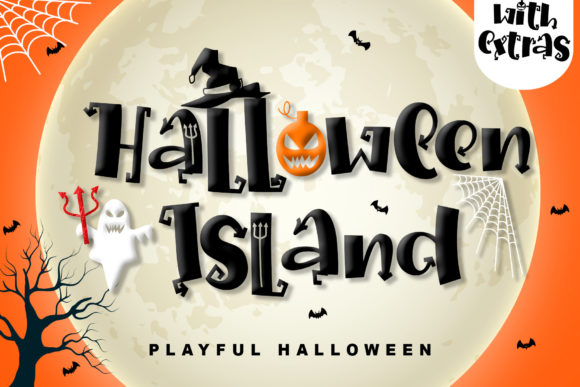
Immerse yourself in the captivating world of Halloween Island, a decorative font that will cast a spell on your designs. With its enchanting fusion of whimsical and sophisticated undertones, this font is the perfect companion for unleashing your creative spirit this October.
Immerse yourself in a world of creativity with Halloween Island, a decorative font that will enchant your designs in an instant. Designed to evoke the magic of the season, this font seamlessly blends the whimsical with the sophisticated, offering a world of creative possibilities.
Slip into the shoes of a literary sorceress and cast your spellbinding prose with Halloween Island. Its crisp, clean lines dance across the page, leaving a trail of elegance and enchantment in their wake. Perfect for crafting captivating resumes that cast a spell on potential employers, this font will elevate your words and make you stand apart from the crowd.
Halloween Island is not just a font; it's your passport to a realm of design magic. Summon the power of creativity and conjure captivating designs that will mesmerize your audience. Unleash the enchantment within and let your imagination soar with Halloween Island, the font that will transform your designs into extraordinary works of art.